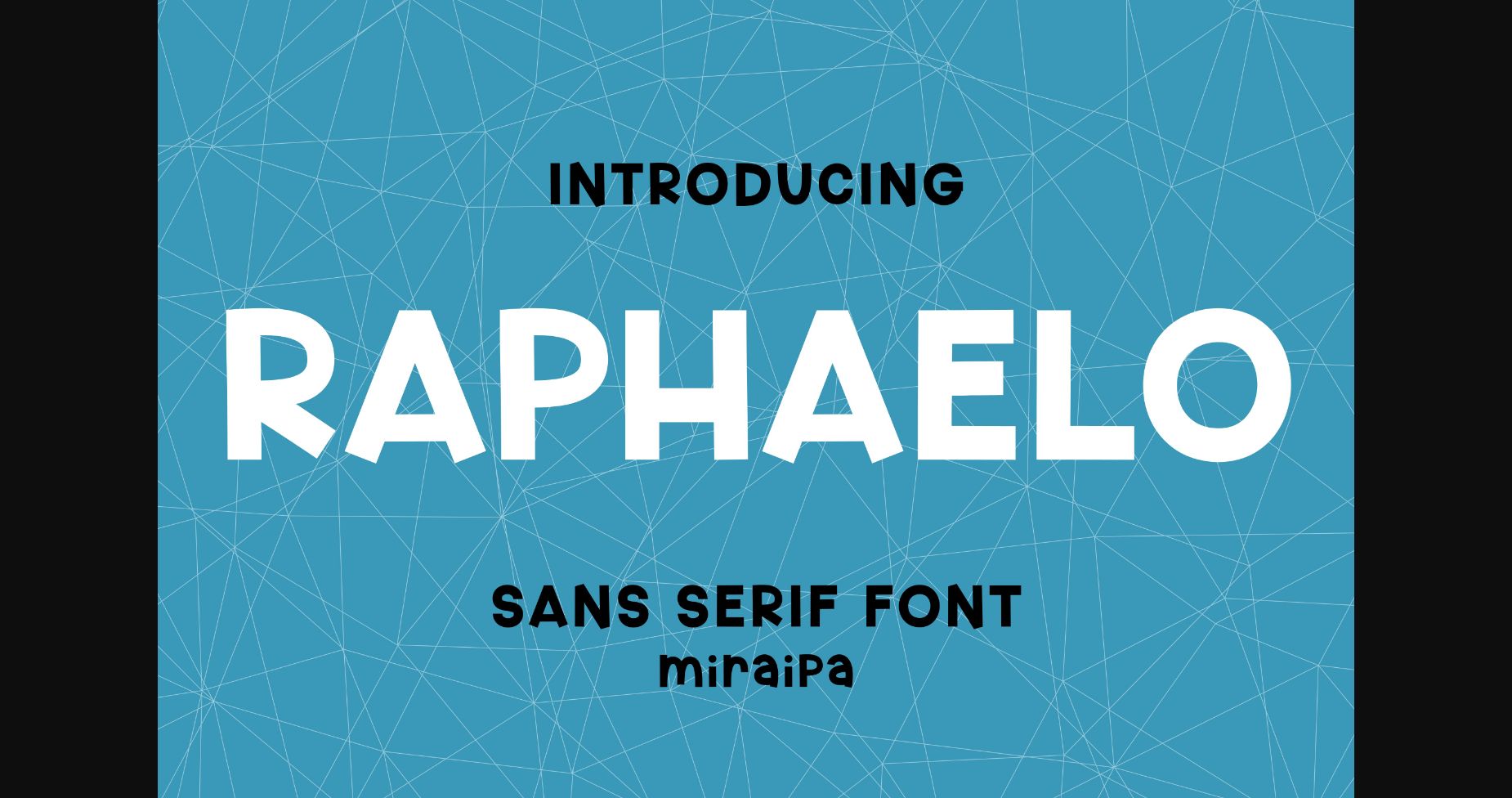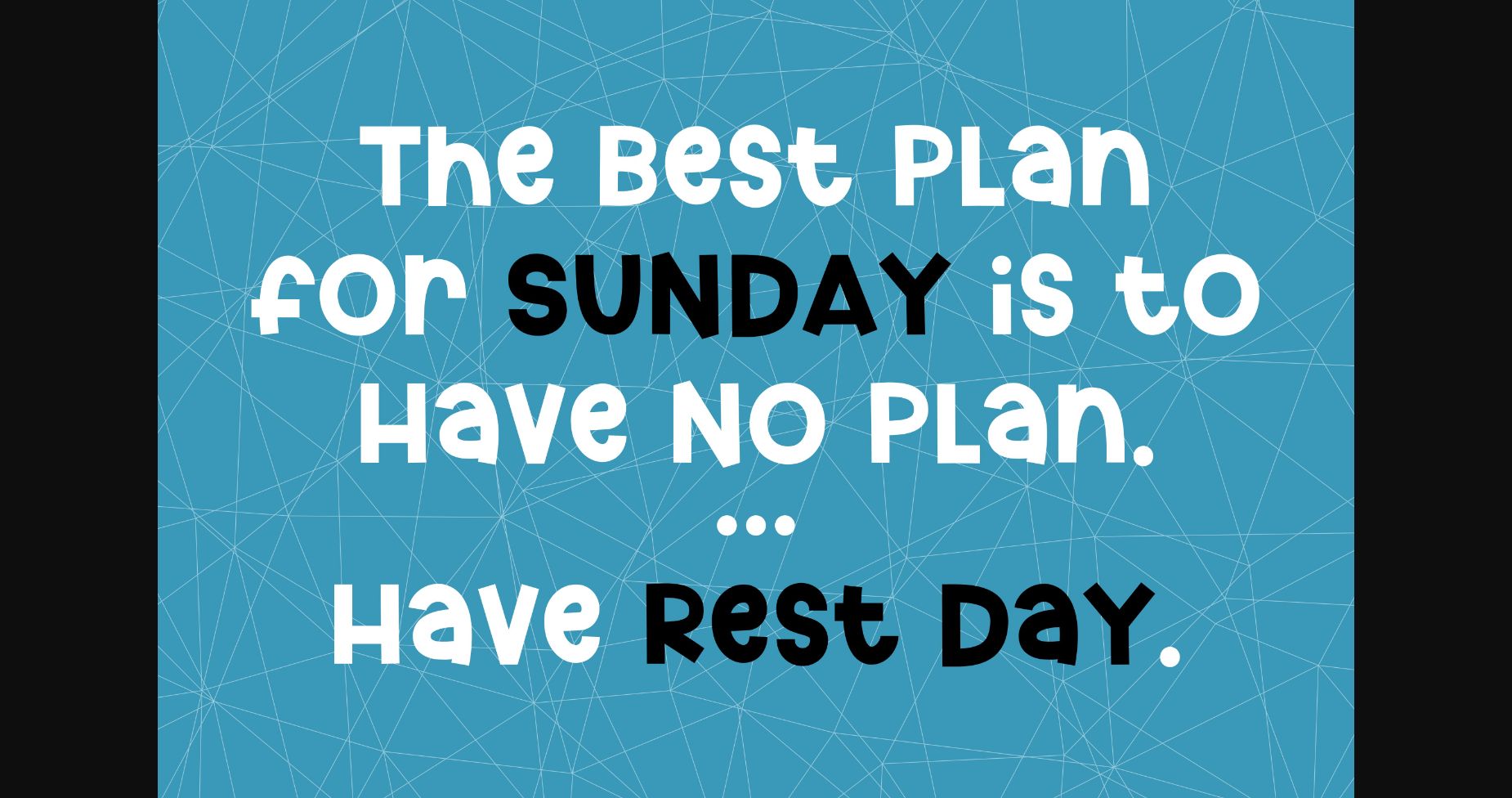
About Raphaelo Font
Raphaelo is designed in a modern and friendly handwritten sans serif font style. It would be awesome for your projects or diary planner. Try it for your perfect projects such as Easter, back to school, weddings, party decorations, invitations, Fall, Halloween, Christmas, posters, blogs, clothing, child-related designs, greeting cards, social media posts, or anything that needs a friendly touch.